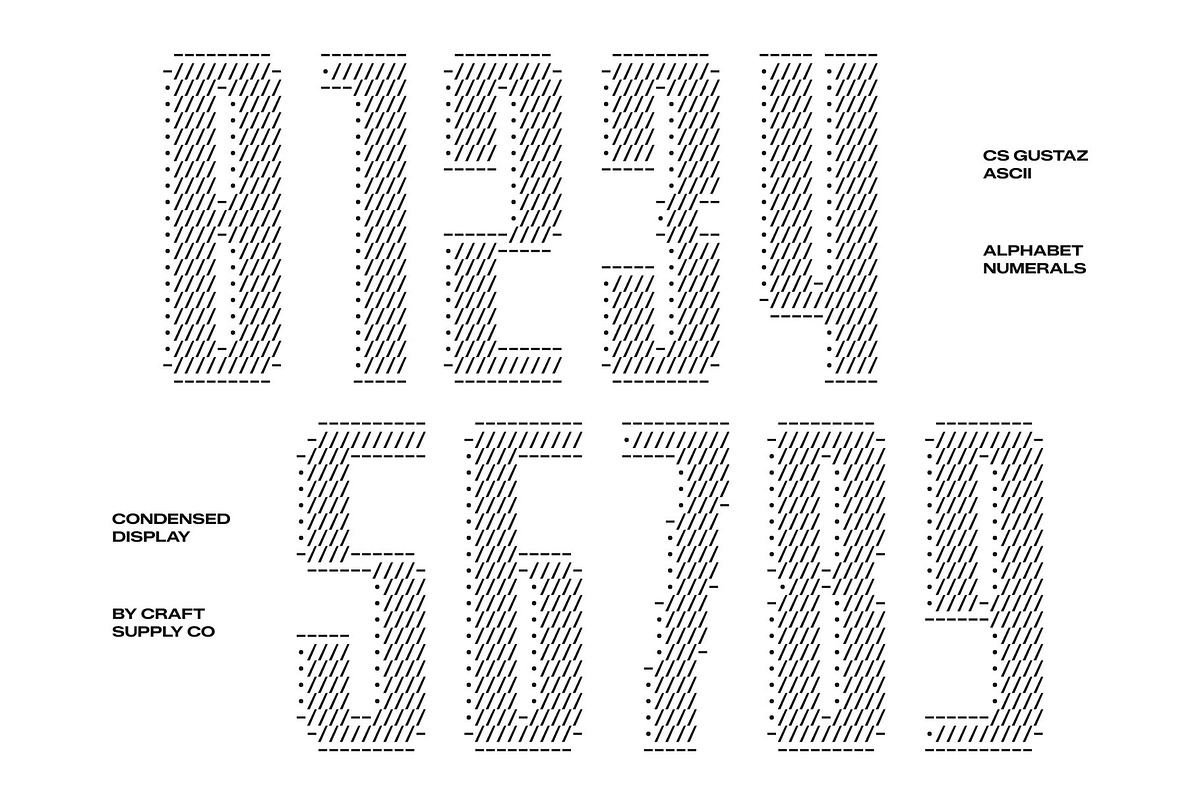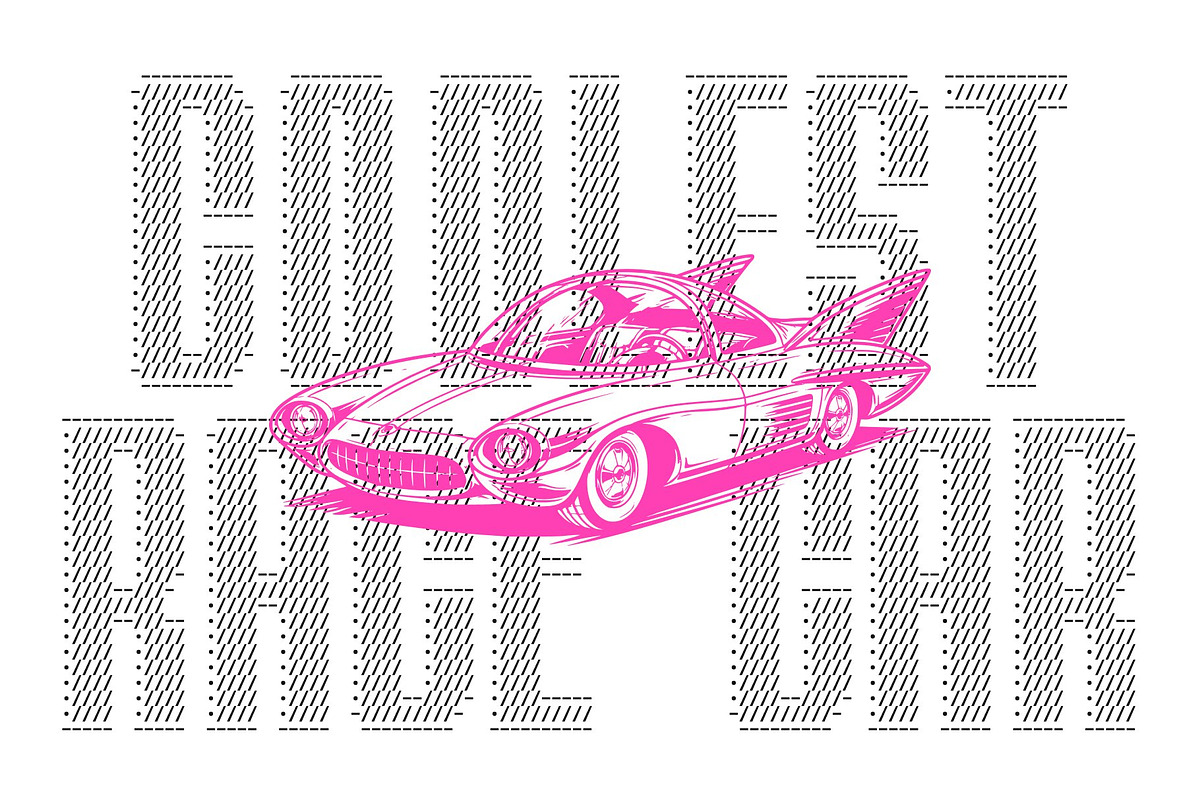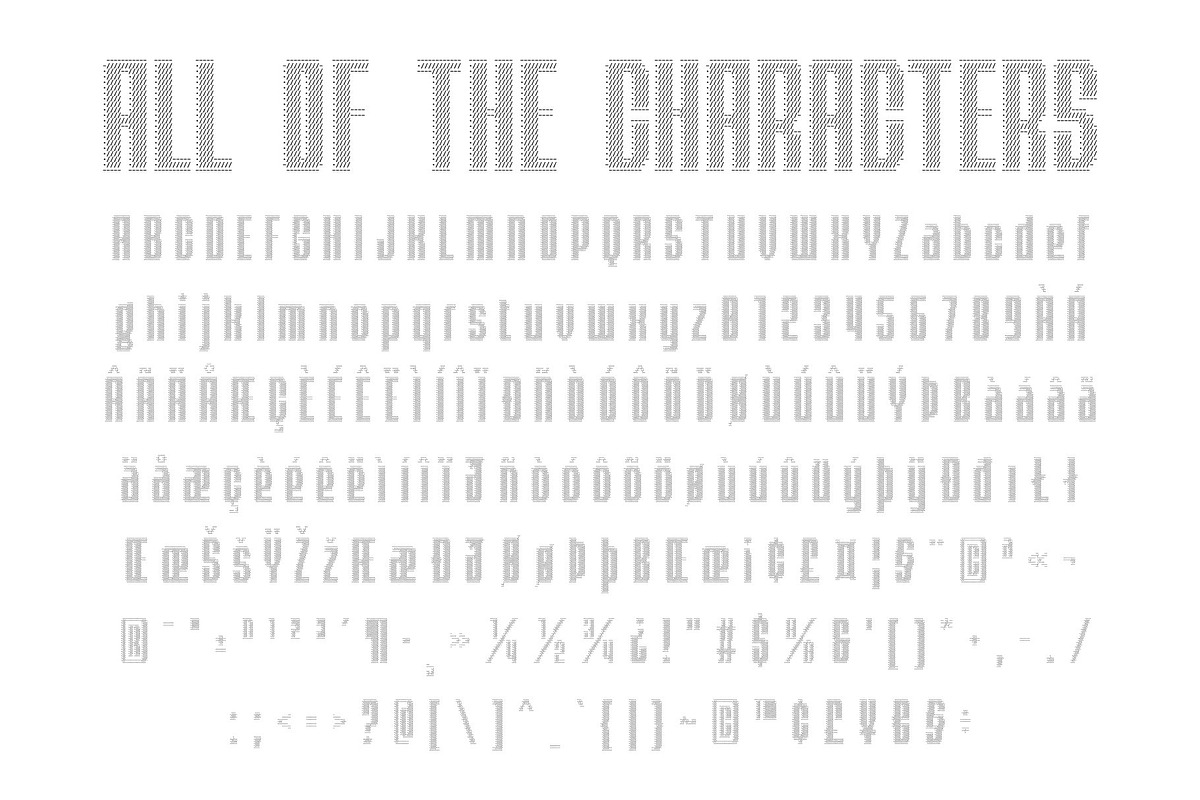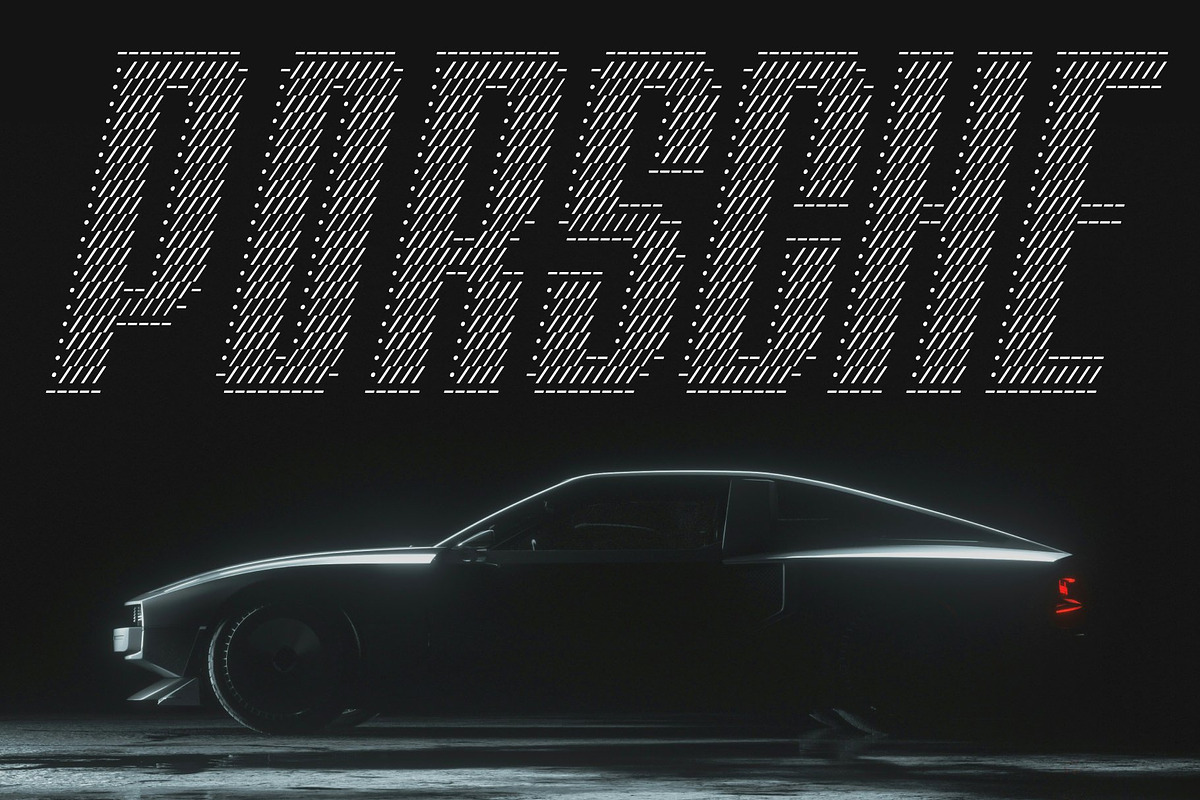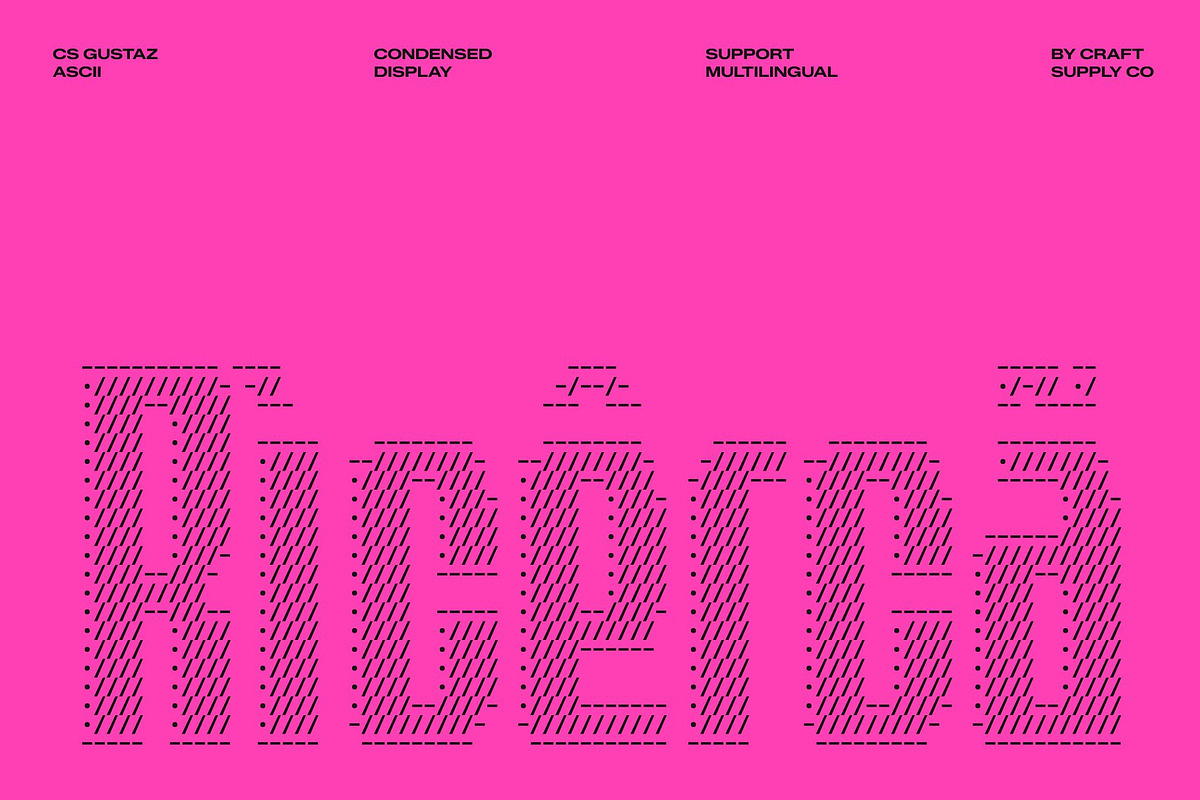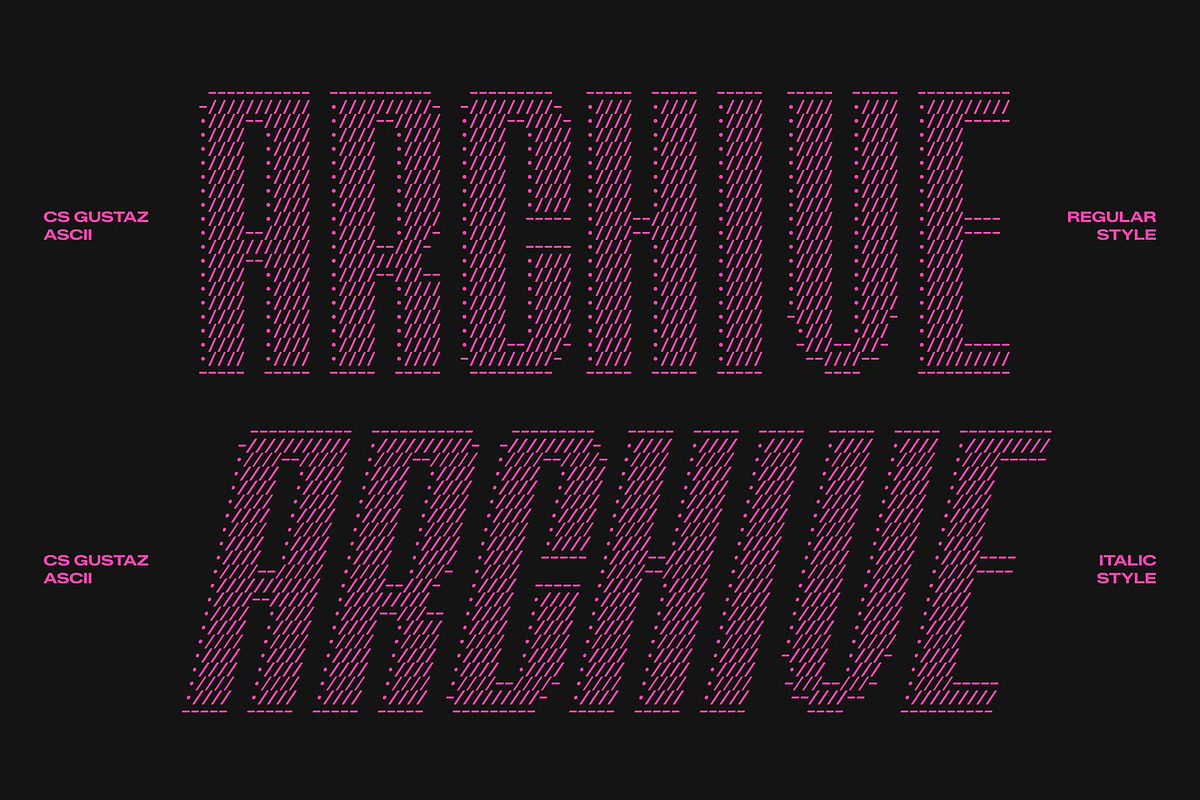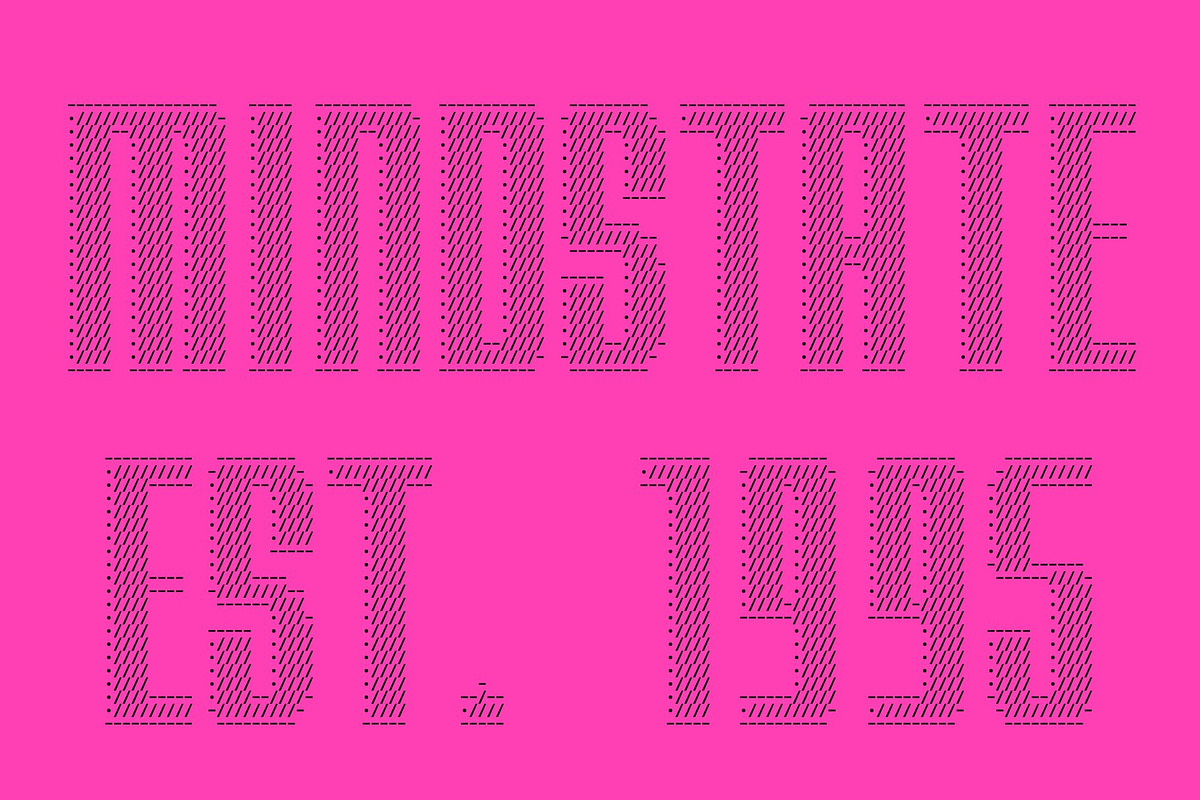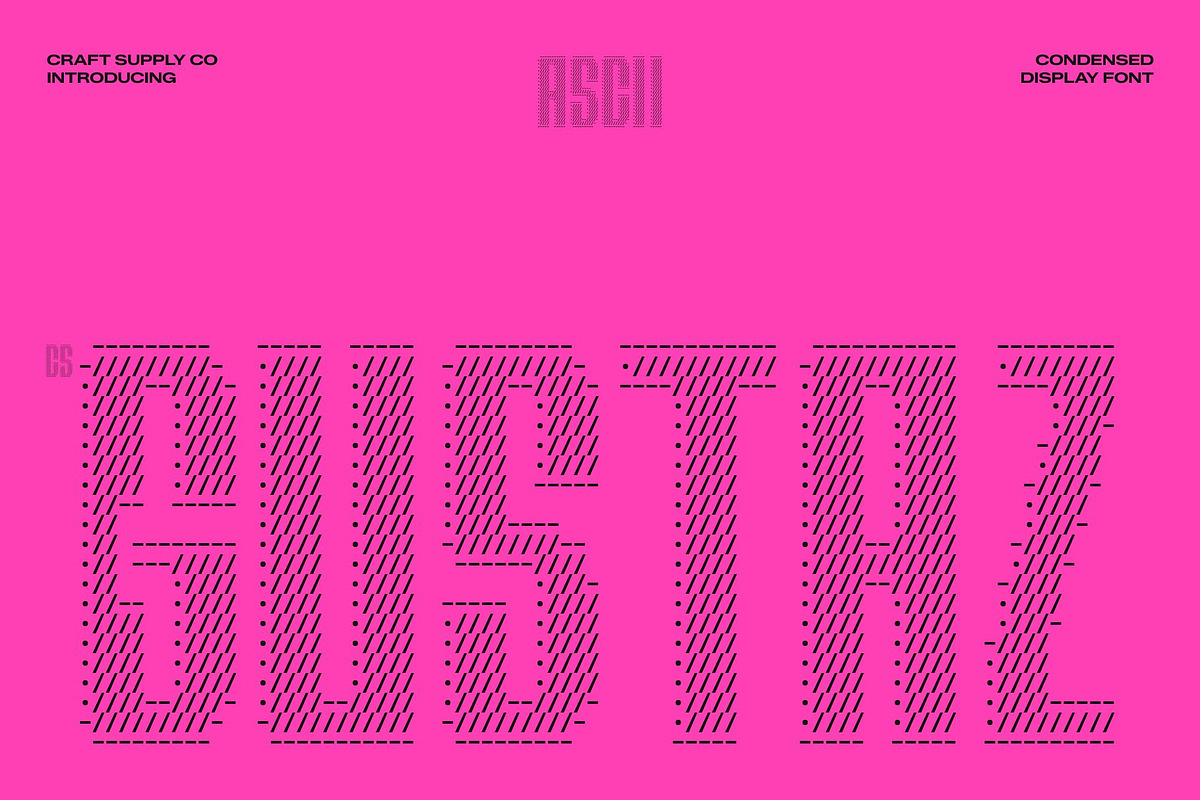
CS Gustaz Ascii
CS Gustaz Ascii – Modern Condensed Display Font with Industrial Boldness
Bold Industrial Structure Reimagined in ASCII this font transforms the strong personality of a modern condensed display font into a striking ASCII-based typographic system. Each character is carefully assembled from symbolic elements, forming tall, compact, and visually engineered letterforms. This construction creates a powerful digital aesthetic where industrial strength meets expressive ASCII artistry, resulting in typography that feels commanding and modern.
Engineered for Tight and High-Impact Layouts Designed with condensed proportions, this font maximizes space efficiency while preserving clarity and visual balance. Its narrow structure allows more content to fit into limited layouts without losing readability. The ASCII styling enhances this precision by adding a layered digital texture, making headlines and titles feel structured, dense, and visually impactful in any composition.
Industrial Aesthetic with Clean Geometric Precision Defined by bold strokes, geometric consistency, and a strong vertical rhythm, this font carries a clear industrial identity. The clean construction ensures versatility across different design systems, while its heavy visual weight adds authority and confidence. This balance between structure and boldness creates a typeface that feels engineered, functional, and visually powerful.
Perfect for Posters, Branding, and Editorial Impact This font excels in high-impact design environments such as advertising, posters, branding, editorial layouts, and digital campaigns. Its condensed form supports strong typographic hierarchy, while the ASCII detailing adds a distinctive modern edge.